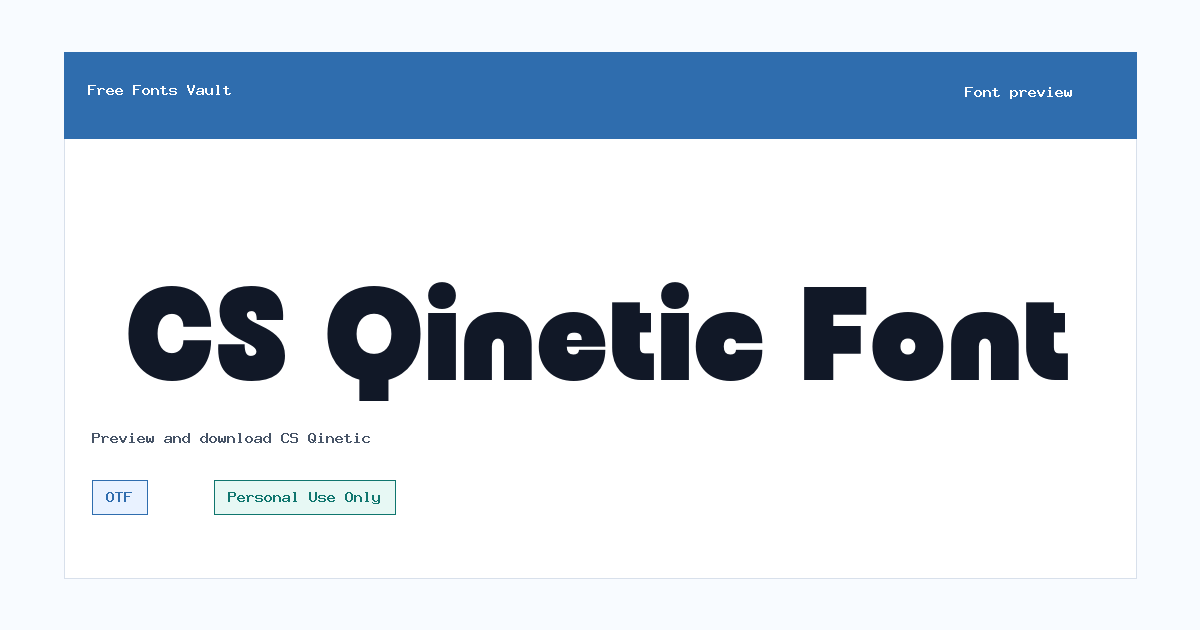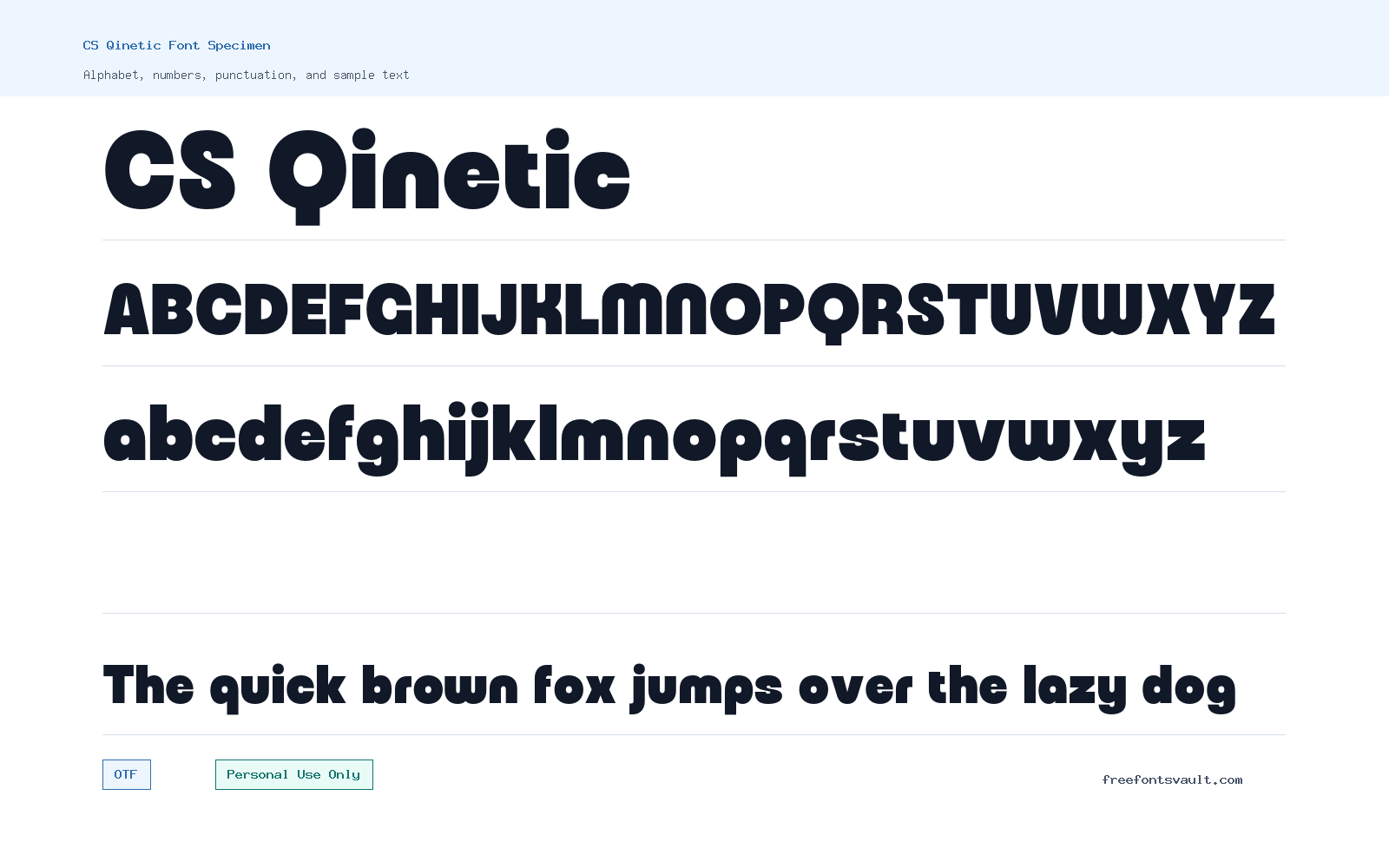
CS Qinetic
CS Qinetic Font
CS Qinetic is a sans serif font with a clean regular style, designed for visitors who want a straightforward typeface to test in headings, short labels, and simple display layouts.
About CS Qinetic Font
CS Qinetic comes as a Regular OTF font file with normal style and 400 weight. Its sans serif structure makes it a practical choice when you want text that feels direct and uncluttered. Because only one style is listed, it is best treated as a single-style display or layout font rather than a full text family with multiple weights, italics, or extended typographic options.
• Sans serif category with a simple single-style setup
• Headlines, short titles, labels, and clean display text